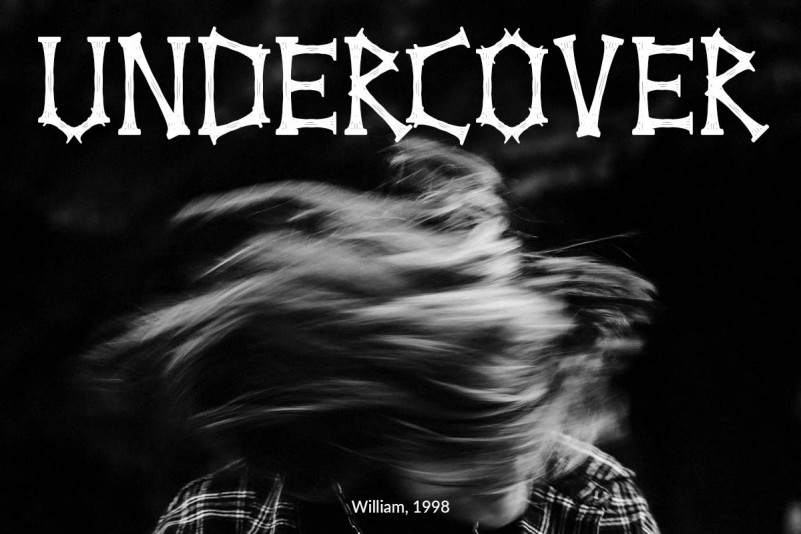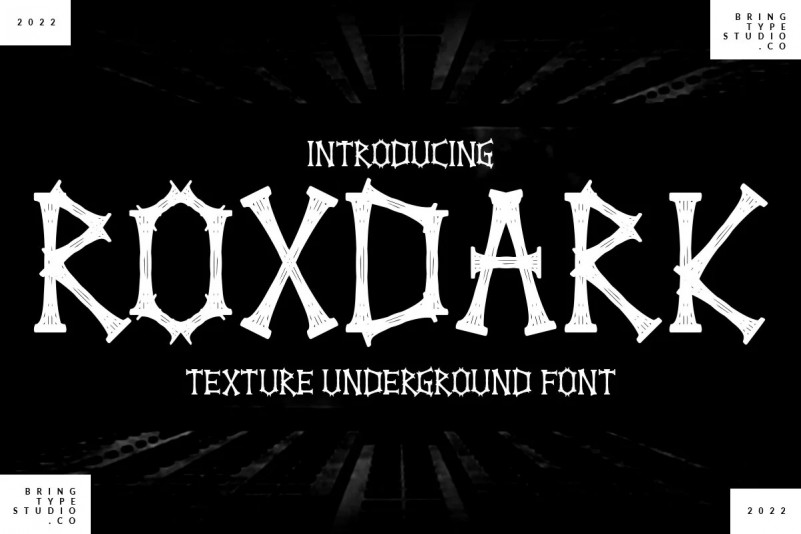
Roxdark Font
ROXDARK Display font made with a square line and a precise curve between one and the other, this font is perfect for branding, headings, lettering signs, logos, blogs, wedding invitations, t-shirts, letterheads, merchandise, signage, labels, news, posters, badges, and more.